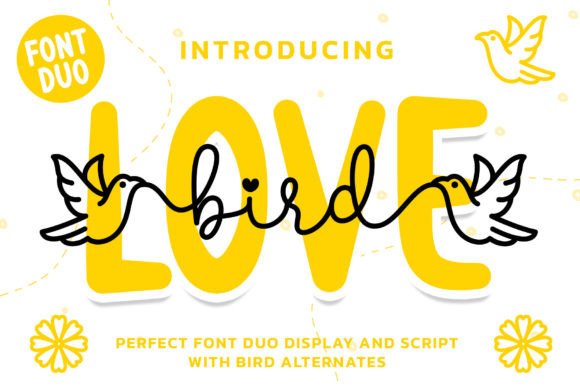
Introducing Love Bird, the ornate script font that is perfect for adding beauty and romance to any project! Created by the talented designers at Hoperative Design, Love Bird is a one-of-a-kind font that is sure to capture your heart.
With its graceful curves and delicate lines, Love Bird is the perfect choice for anyone looking to add a touch of elegance and sophistication to their designs. This font features elegant birds as part of the intricate calligraphy, making it truly unique and eye-catching.
What's more, Love Bird is PUA encoded, which means that you can easily access all glyphs and swashes without any hassle. Whether you're a professional designer or just starting out, Love Bird is the ideal font for all your creative needs.
Looking to add a touch of romance to your wedding invitations? Love Bird is the perfect choice. Want to create a stunning logo that will capture your audience's attention? Love Bird is the way to go. Whatever your project may be, Love Bird is the perfect way to elevate your designs and take them to the next level.